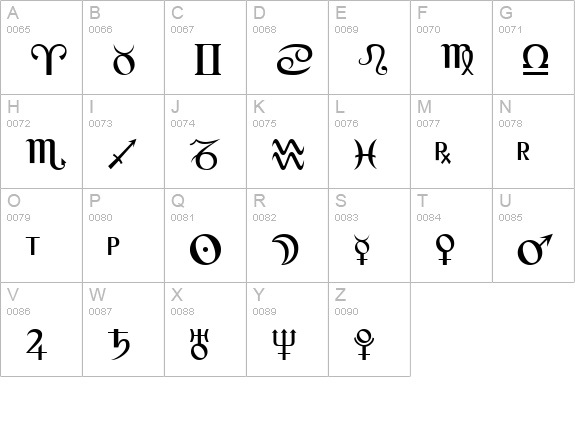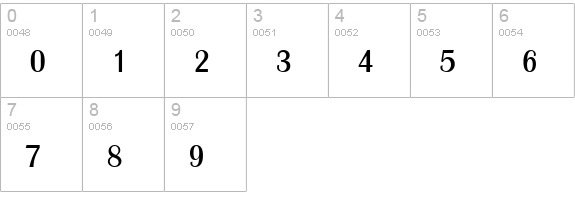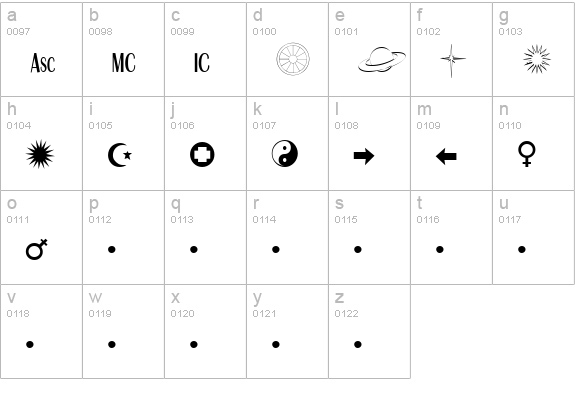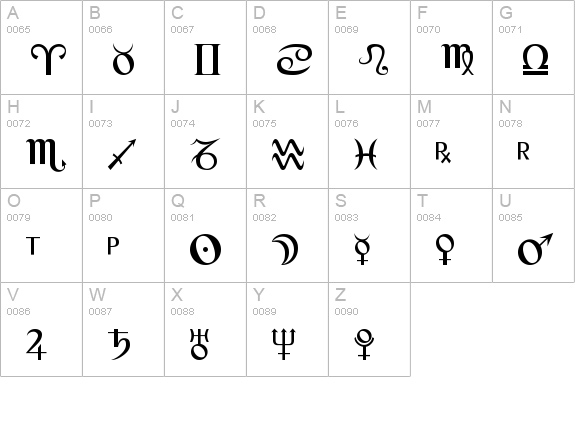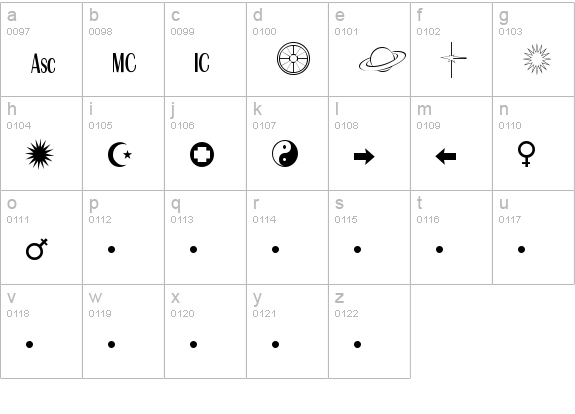
Astro Font Details
The Astro font is a stunning display typeface that exudes a futuristic and cosmic vibe. With its sleek, modern design and bold letterforms, Astro is perfect for creating eye-catching headlines, logos, and posters that will captivate your audience. This unique font is versatile and can be used for a variety of design projects, whether you're looking to add a touch of space-age sophistication or a hint of otherworldly mystery. Best of all, the Astro font is completely free to download at FontsMarket.com. This means you can unleash your creativity and bring your designs to life without breaking the bank. So why wait? Download the Astro font today and take your projects to new heights with this stellar typeface.